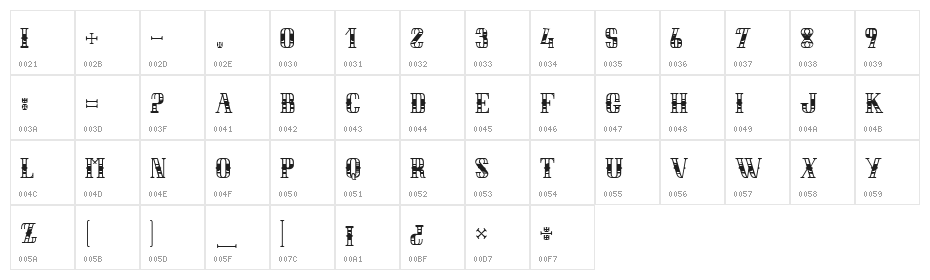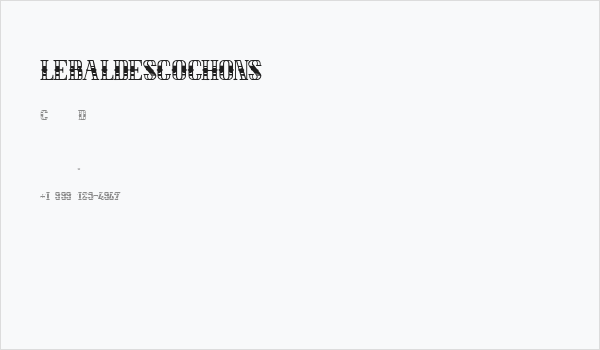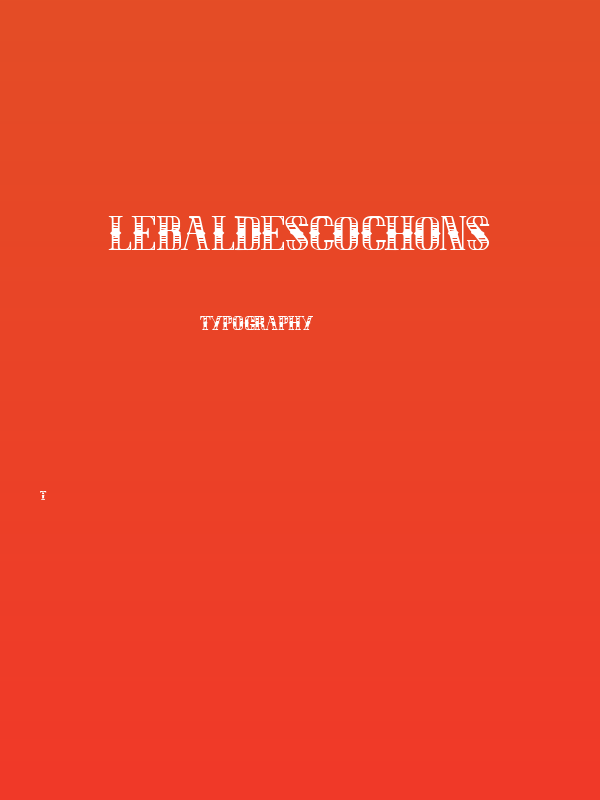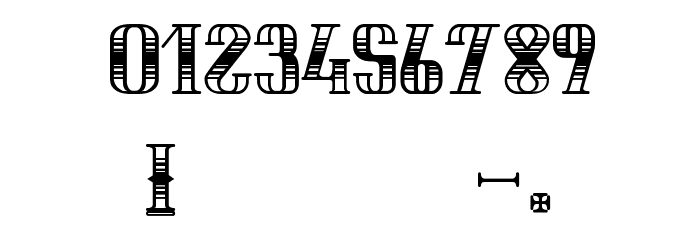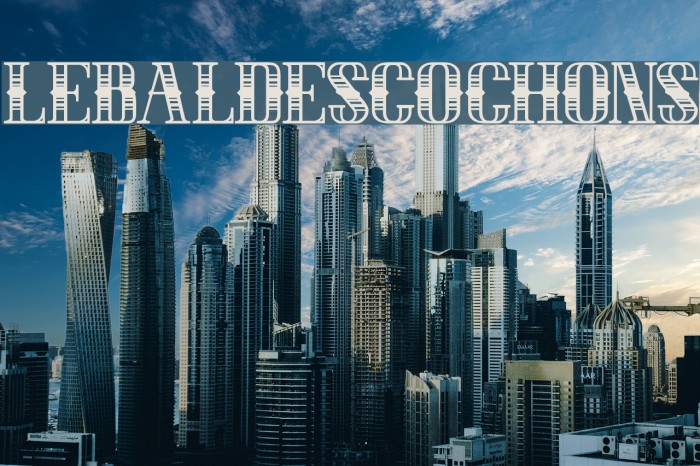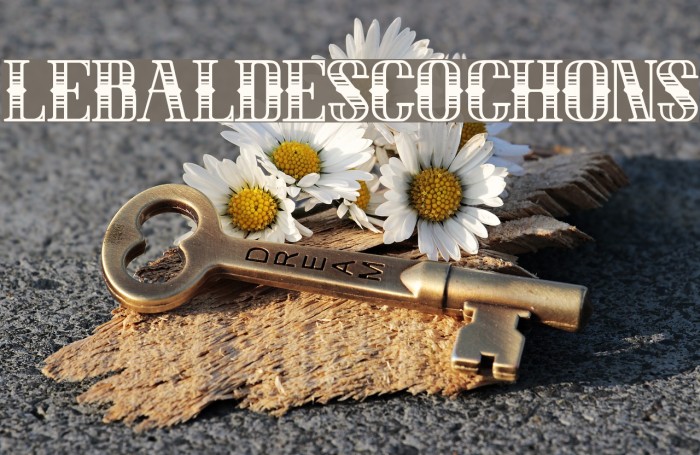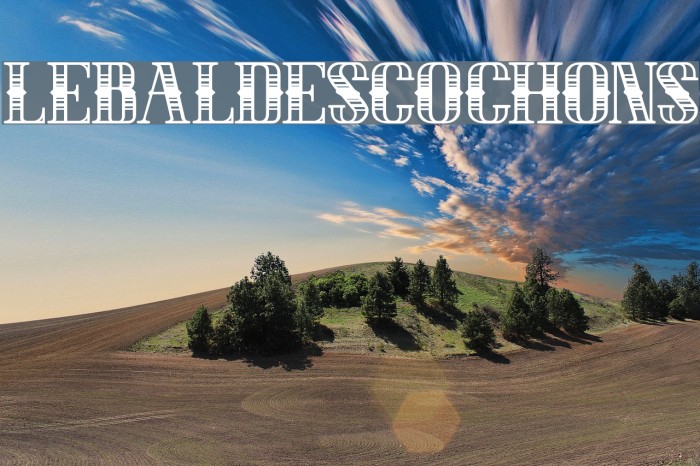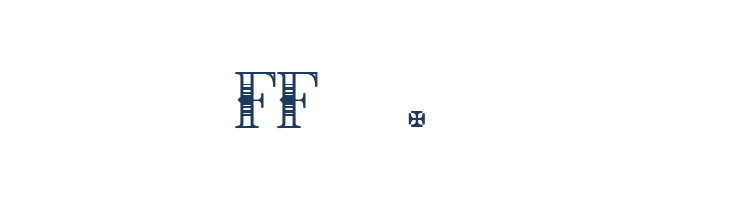
LEBALDESCOCHONS Font
This font features a bold and decorative style with a unique striped pattern running through each character. The uppercase letters are prominent and eye-catching, making them ideal for attention-grabbing headlines or titles. The numerals and special characters maintain the same decorative theme, ensuring consistency across all text elements. The font's design is reminiscent of vintage circus or carnival posters, adding a playful and nostalgic touch to any project.
| Proposed Projects | Ideal for posters, event invitations, branding for retro-themed products, or any project requiring a playful and nostalgic aesthetic. |